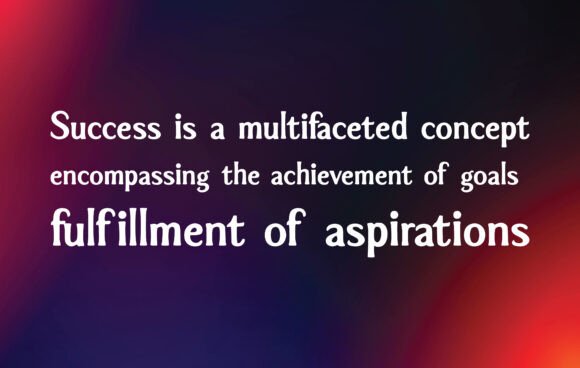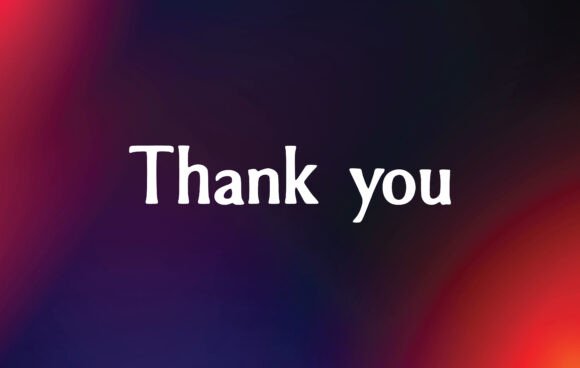
Introduction to Leighton Font
As a designer, have you ever felt the rush of excitement when a creative project comes together perfectly? The feeling of accomplishment and pride is unmatched, and it’s moments like these that remind us why we love our job. For me, that moment came when I stumbled upon the beautiful Leighton Font.
This stunning handwritten font has the power to elevate your designs to new heights, making it a valuable resource for any designer. With its elegant and sophisticated style, Leighton Font is the perfect choice for creating eye-catching logos, branding, and quotes that truly stand out. Whether you’re working on a free download project or a high-quality commercial design, Leighton Font is sure to bring a touch of class and sophistication to your work.
Not only is Leighton Font a great design resource, but it’s also incredibly versatile, allowing you to use it on a transparent background or as a standalone design element. Its unique style and high-quality design make it a must-have for any designer looking to take their creative ideas to the next level.
Key Features of Leighton Font
- Designed with a unique, elegant style, perfect for use in headings, titles, and other prominent design elements.
Honest Review: Leighton Font
I recently had the chance to work with the Leighton Font, and I must say, I was pleasantly surprised. This high-quality font is a great addition to any designer’s arsenal, especially for creative projects that require a unique touch.
One of the standout features of the Leighton Font is its transparent background, which makes it easy to use as a design resource for backgrounds, overlays, or even as a standalone element. ✨ The font is also highly versatile, with a wide range of styles and weights to choose from, making it suitable for a variety of design applications.
- Wide range of styles and weights
Overall, I’m impressed with the Leighton Font, and I would highly recommend it to designers looking for a high-quality, versatile font for their creative projects.
Tips for Getting the Most Out of Leighton Font
Use the Leighton Font on a transparent background to create a striking visual effect. Experiment with different font sizes and styles to add depth and interest to your design.
The Leighton Font is ideal for use in logo design, branding, and marketing materials. Its high-quality design and transparent background make it a popular choice for creative projects.